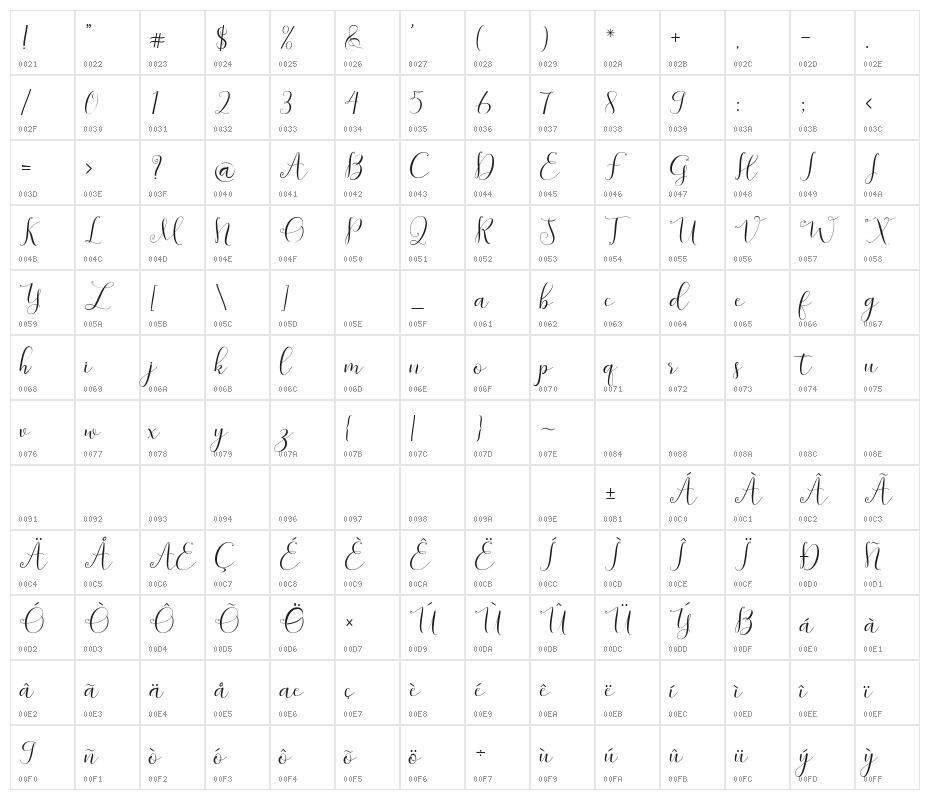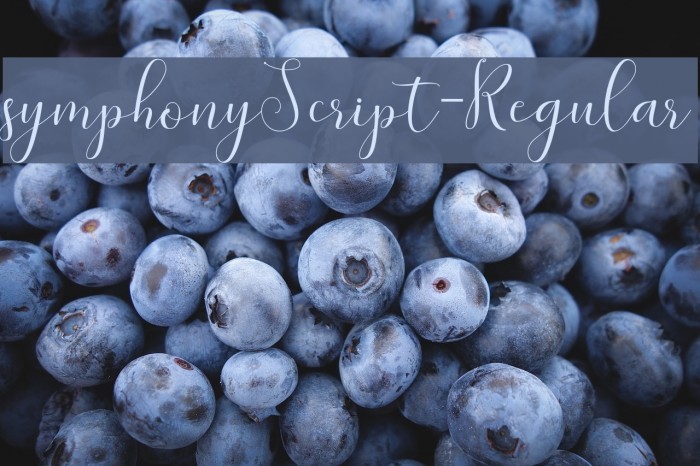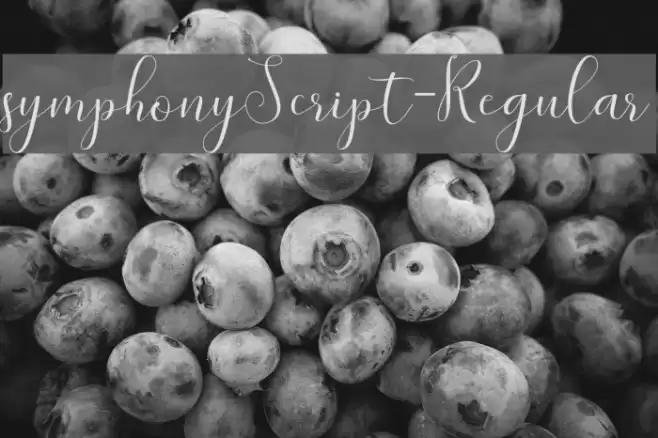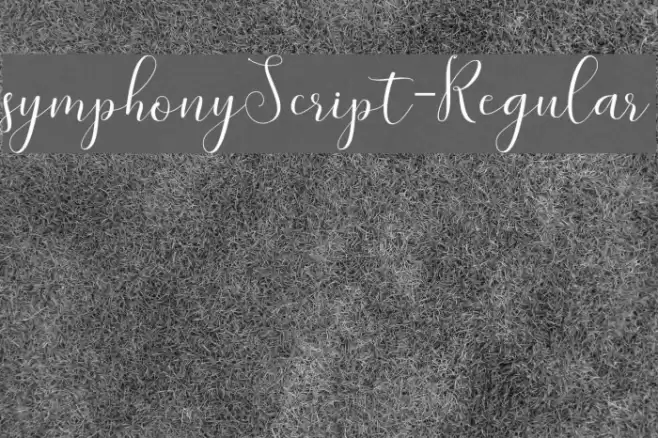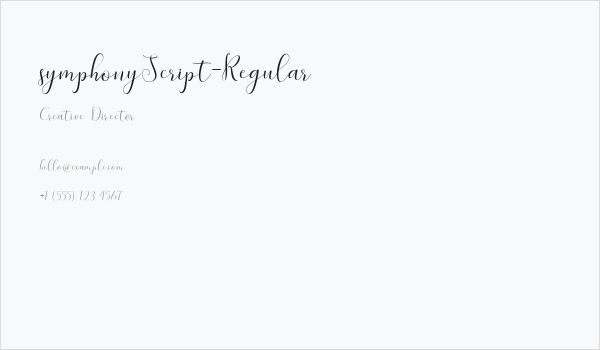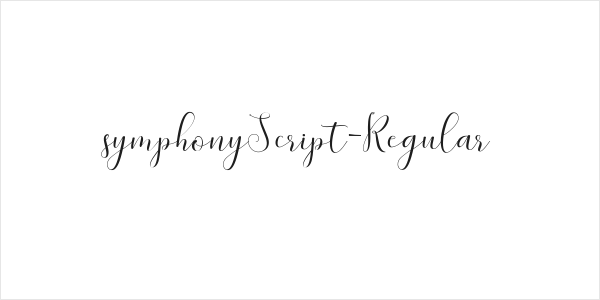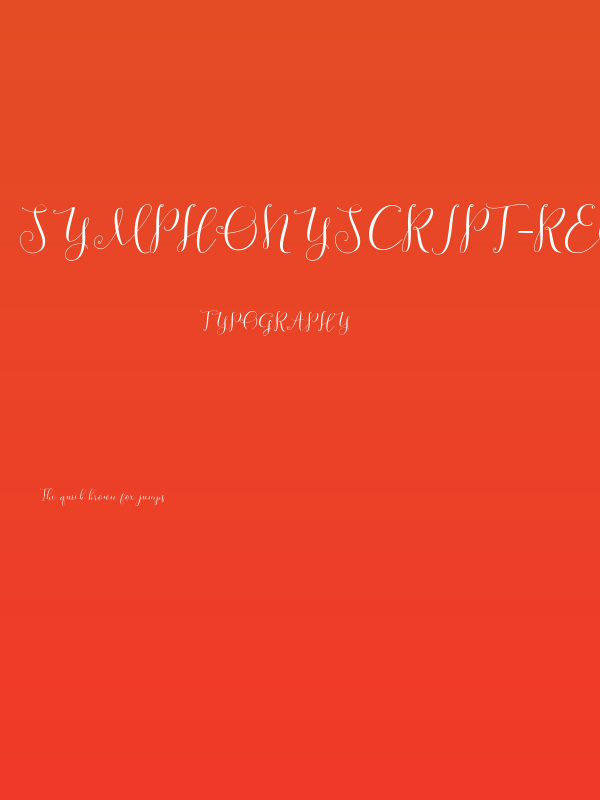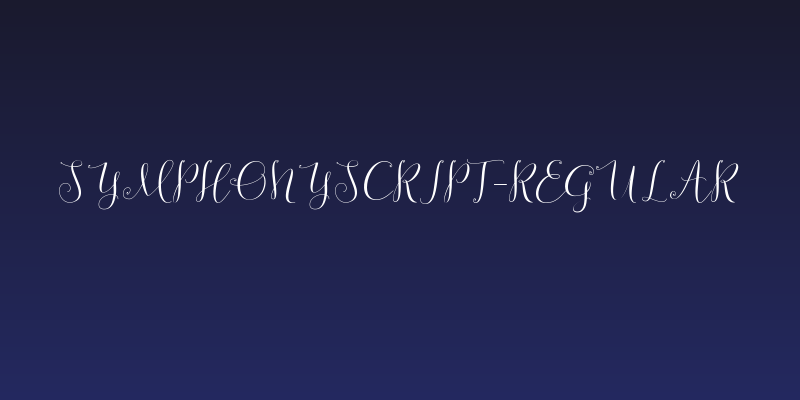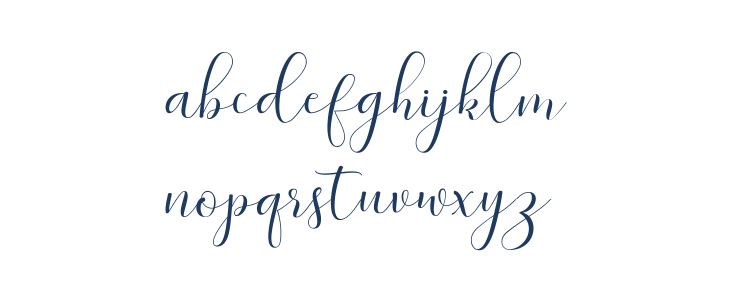
symphonyScript-Regular Font
symphonyScript-Regular Description
This elegant script font features flowing, cursive letterforms with intricate loops and swashes, creating a sense of movement and grace. The uppercase letters are particularly ornate, with extended flourishes that add a touch of sophistication. The lowercase letters maintain a consistent rhythm, enhancing readability while still offering a decorative flair. Numbers and special characters are designed with the same attention to detail, ensuring a cohesive look across all text elements. This font is ideal for projects that require a touch of elegance and style.
| Proposed Projects | Wedding invitations, elegant branding, greeting cards, luxury packaging, and decorative signage. |